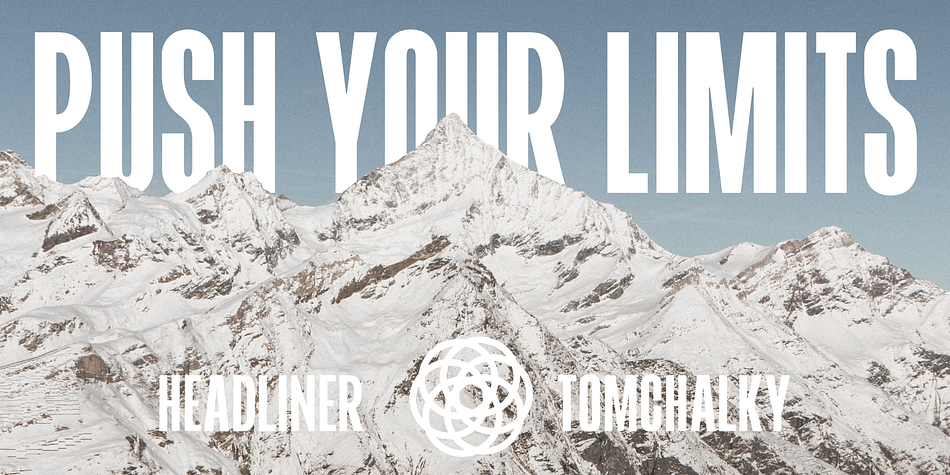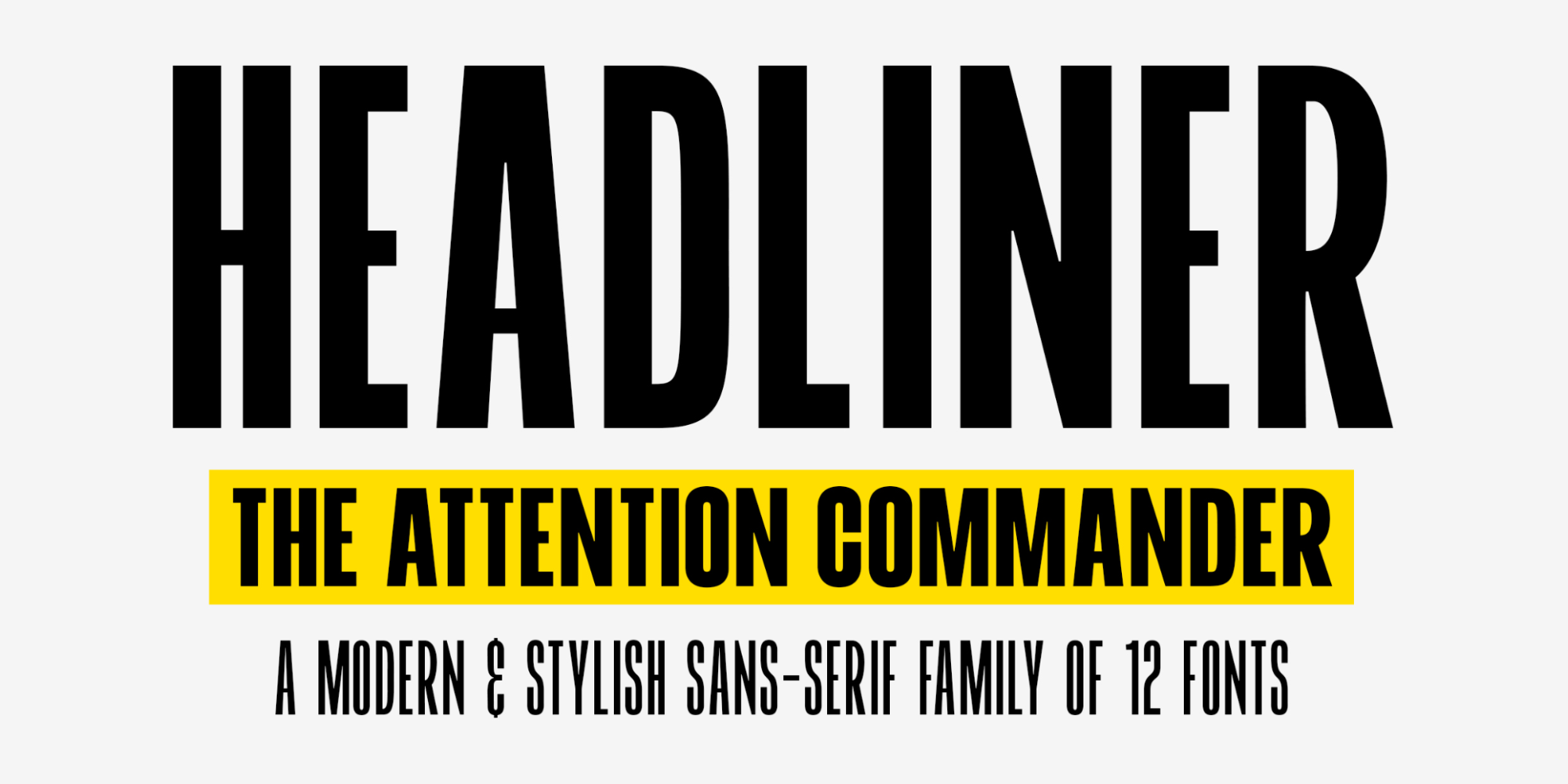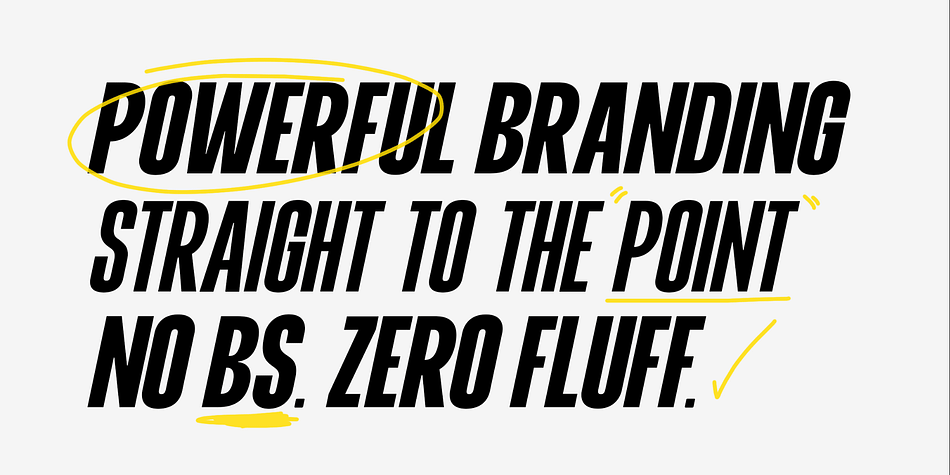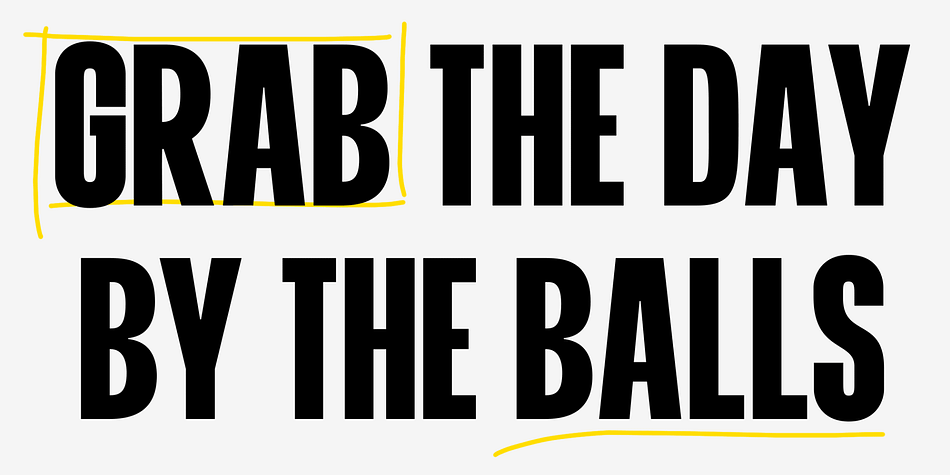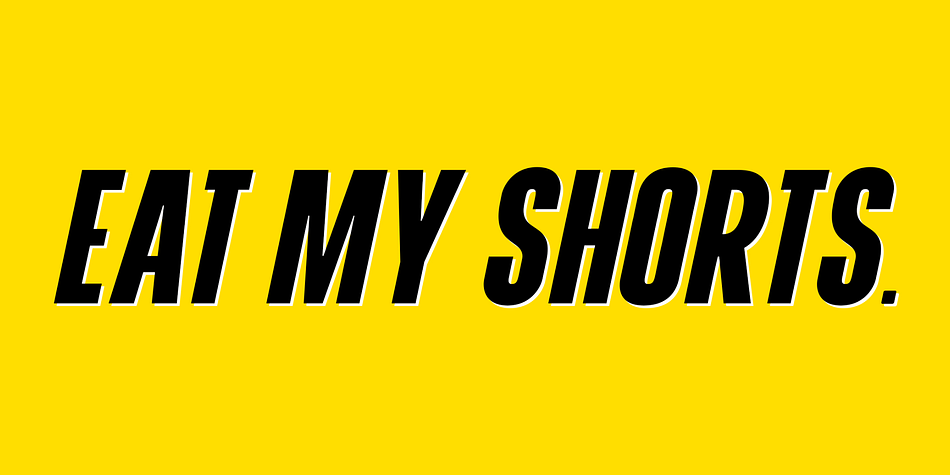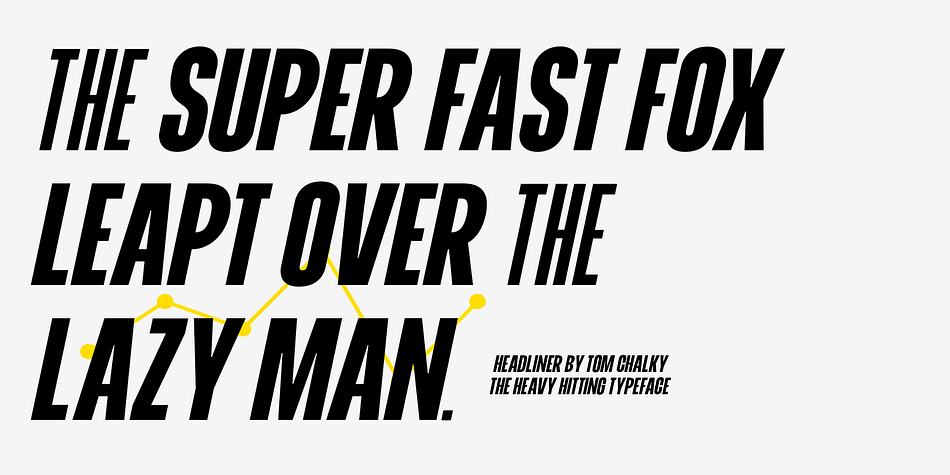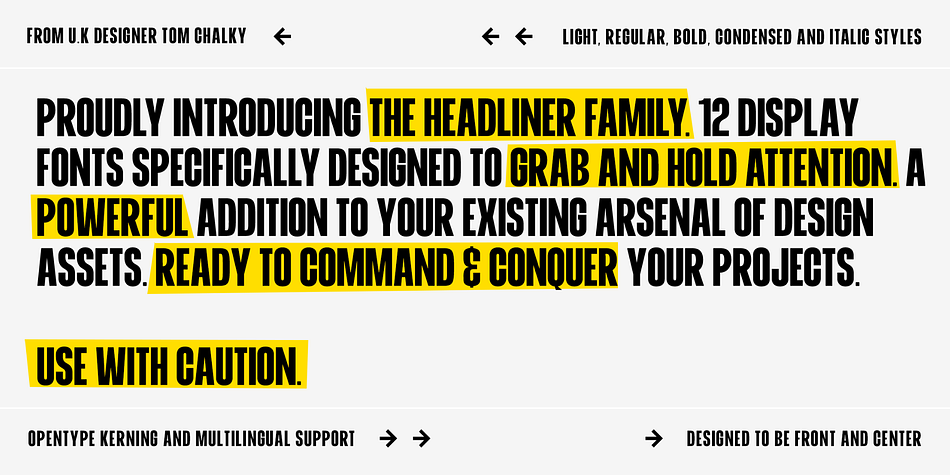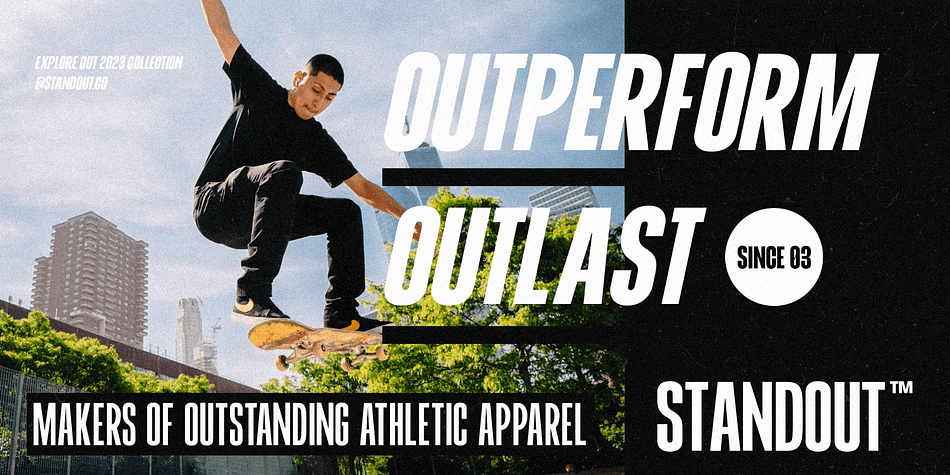
HEADLINER TC
Designed by Tom White, Headliner TC is a display sans font family. This typeface has twelve styles and was published by Tom Chalky.
Proudly introducing the Headliner font family. 12 display fonts specially designed to grab and hold attention. This loud and proud family will make a powerful addition to your existing arsenal of design assets. Featuring Opentype kerning and multilingual support, this family is ready to command & conquer your projects right from the offset
Foundry Tom Chalky
Designer Tom White